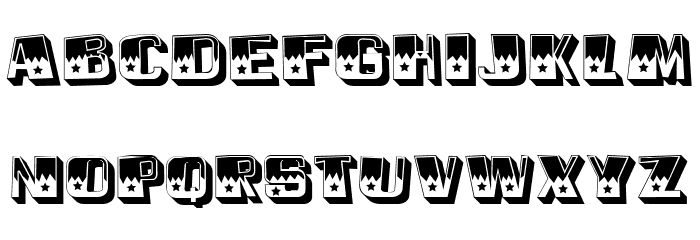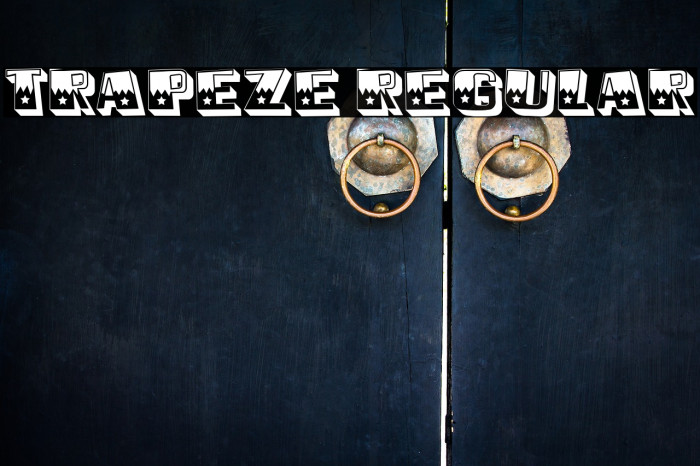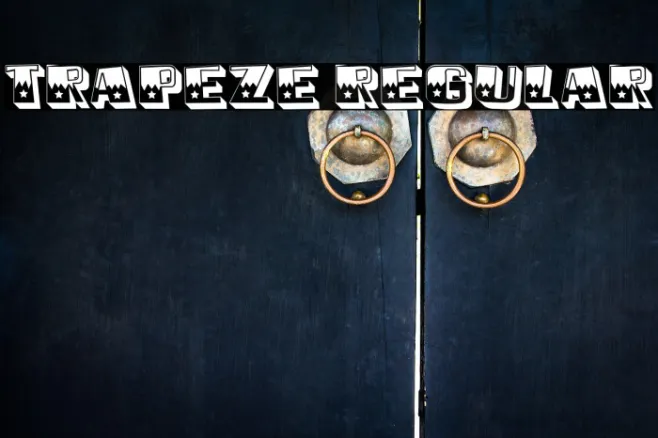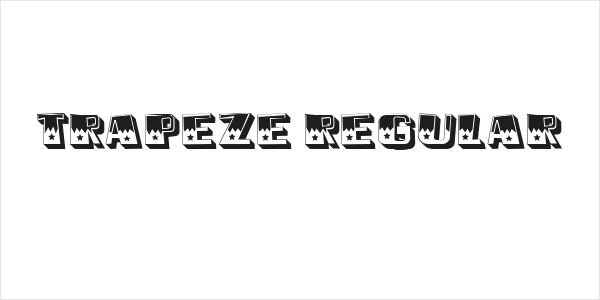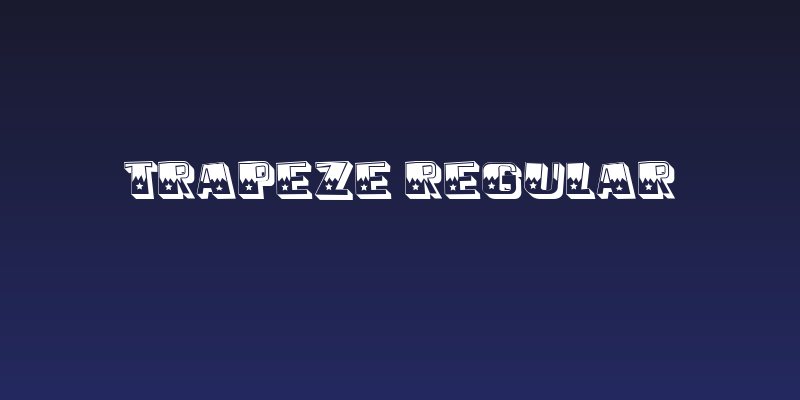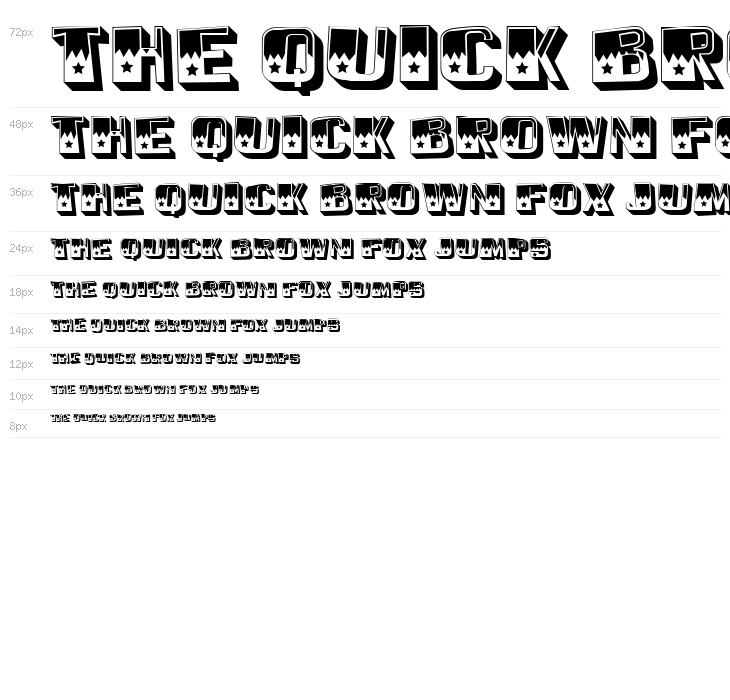
Trapeze Regular Font
Trapeze Regular Description
This font features a bold, decorative style with a three-dimensional effect. Each character is filled with a pattern of stars, adding a playful and whimsical touch. The letters have a blocky, geometric structure with sharp angles and clean lines, creating a sense of depth and dimension. The use of contrasting black and white enhances the visual impact, making it stand out prominently. This font is ideal for projects that require a fun and eye-catching design, such as posters, event flyers, or children's book covers.
| Proposed Projects | Ideal for posters, event flyers, children's book covers, and playful branding. |